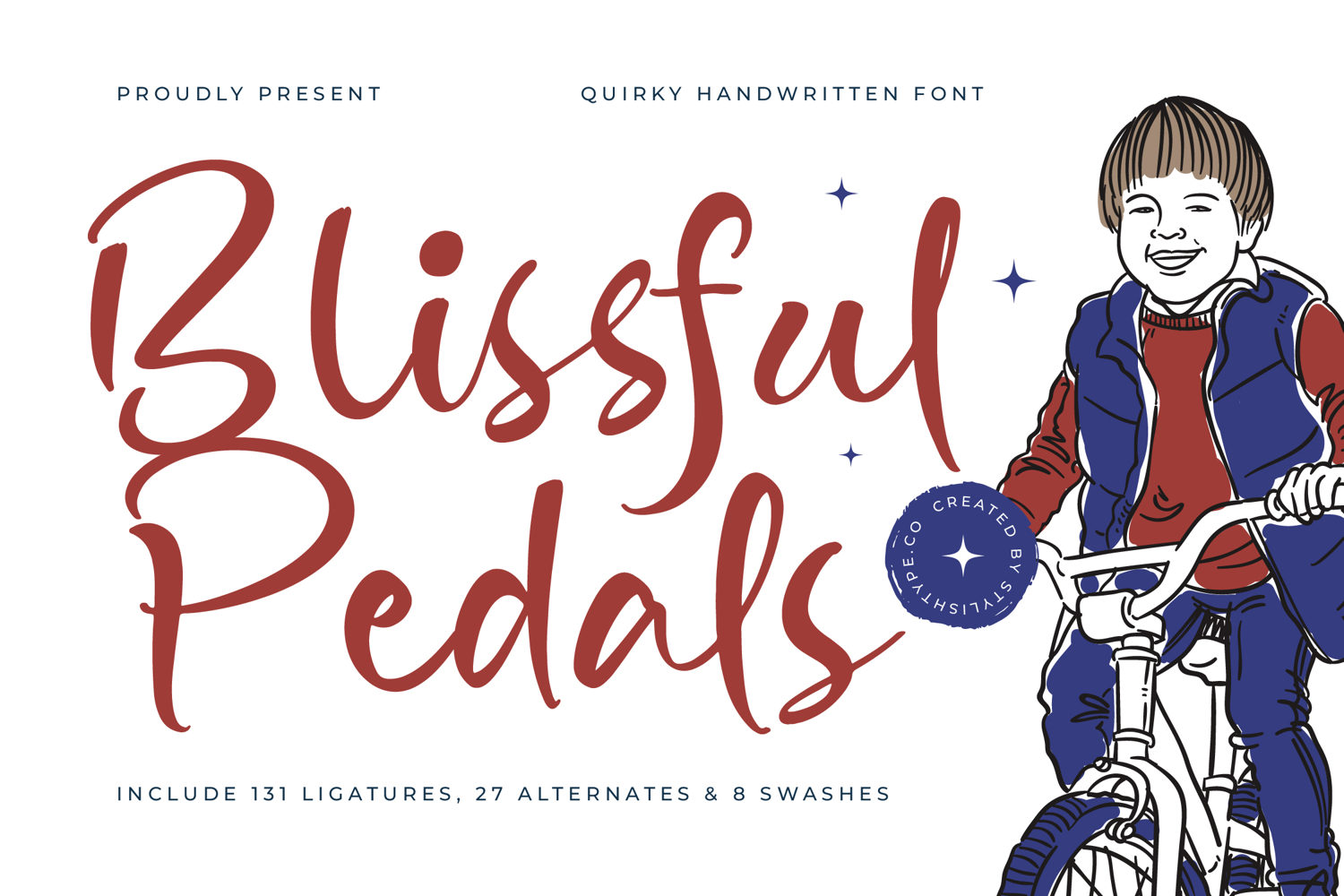
Blissful Pedals - Quirky Handwritten Font
Blissful Pedals Italic
Blissful Pedals
Blissful Pedals - Quirky Handwritten Font. With 131 unique ligatures, 27 stylistic alternates, and 8 decorative swashes, designers can craft truly personalized word marks and dynamic headers. These features ensure optimal flow and connection, transforming standard text into a fluid, customized design, minimizing repetition and maximizing design authenticity.